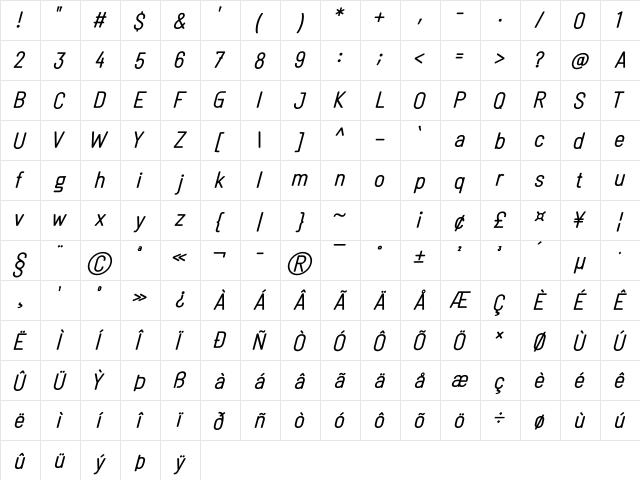
Linguineve Regular Italic
| Designer | Wahyu Saputra |
Design Context for Linguineve Typeface
Linguineve is a composed and adaptable typeface that performs quietly and consistently across a wide range of design contexts. Its italic angle brings a sense of urgency and motion to the letterforms.
Pro Tip: Try Linguineve for annotation and caption copy alongside an upright companion — the contrast in angle creates a dynamic but ordered typographic system.